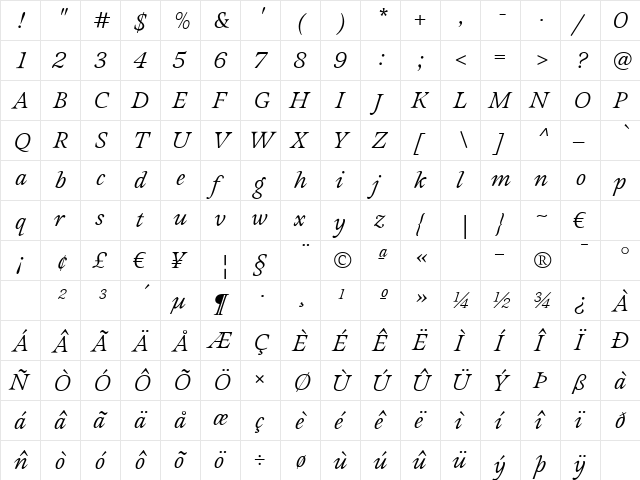
Sovereign-LightItalic Regular
Design Context for Sovereign-LightItalic Typeface
Sovereign-LightItalic is a composed and adaptable typeface that performs quietly and consistently across a wide range of design contexts. Its italic angle brings a sense of urgency and motion to the letterforms. The delicate stroke weight brings airiness and refinement to layouts.